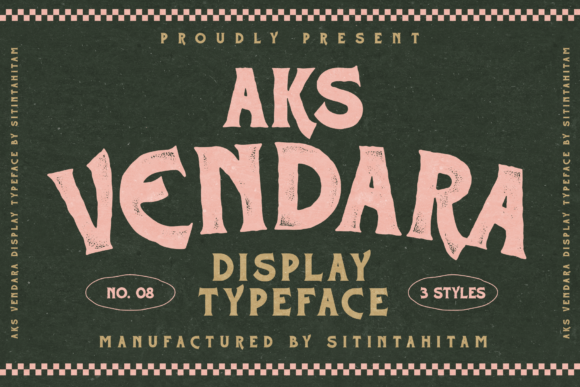
Aks Vendara Font: A Vintage-Inspired Typeface for Designers and Crafters
Are you tired of using the same old fonts in your designs? Look no further than Aks Vendara, a cool display font that’s perfect for adding a vintage touch to your projects. Inspired by motorcycle and custom culture, Aks Vendara is a unique typeface that’s sure to make your designs stand out.
What is Aks Vendara Font?
Aks Vendara is a display font that comes in three styles: regular, stamp, and inked. This versatile typeface is designed to add a rough, vintage feel to your designs, making it perfect for projects that require a unique and eye-catching look. Whether you’re a designer, crafter, or DIY enthusiast, Aks Vendara is a great addition to your font collection.
Inspiration from Motorcycle and Custom Culture
The inspiration behind Aks Vendara font is rooted in motorcycle and custom culture. The font’s design is influenced by the bold, rugged, and rebellious spirit of these subcultures. The result is a typeface that’s perfect for designs that require a strong, edgy look. From custom bike builds to DIY crafts, Aks Vendara is the perfect font to add a touch of personality to your projects.
Key Features of Aks Vendara Font
- Three styles: Aks Vendara comes in three styles: regular, stamp, and inked. This allows you to experiment with different looks and find the one that best suits your design.
- Vintage-inspired: Aks Vendara is designed to evoke a vintage feel, making it perfect for designs that require a retro touch.
- Rough, distressed look: The font’s rough, distressed look adds a unique texture to your designs, making them stand out from the crowd.
- High-quality design: Aks Vendara is designed with high-quality craftsmanship in mind, ensuring that your designs look professional and polished.
Use Cases for Aks Vendara Font
Aks Vendara is a versatile font that can be used in a variety of design projects, including:
- Custom bike builds: Add a touch of personality to your custom bike builds with Aks Vendara’s bold, rugged font.
- DIY crafts: Aks Vendara is perfect for DIY crafts, such as woodworking, metalworking, and other handmade projects.
- Graphic design: Use Aks Vendara in your graphic design projects, such as posters, flyers, and brochures, to add a unique touch.
- Tattoos and body art: Aks Vendara’s bold, edgy design makes it perfect for tattoos and body art designs.
Tips for Using Aks Vendara Font
Here are some tips for using Aks Vendara font in your designs:
- Experiment with different styles: Try out the different styles of Aks Vendara, such as regular, stamp, and inked, to find the one that best suits your design.
- Pair with other fonts: Aks Vendara can be paired with other fonts to create a unique look. Try pairing it with a clean, sans-serif font for a bold contrast.
- Use for headlines and titles: Aks Vendara is perfect for headlines and titles, where its bold, eye-catching design can make a big impact.
Aks Vendara font is a unique and versatile typeface that’s perfect for designers and crafters looking to add a vintage touch to their projects. With its bold, rugged design and three different styles, Aks Vendara is sure to make your designs stand out. Whether you’re working on a custom bike build, DIY craft, or graphic design project, Aks Vendara is a great choice.